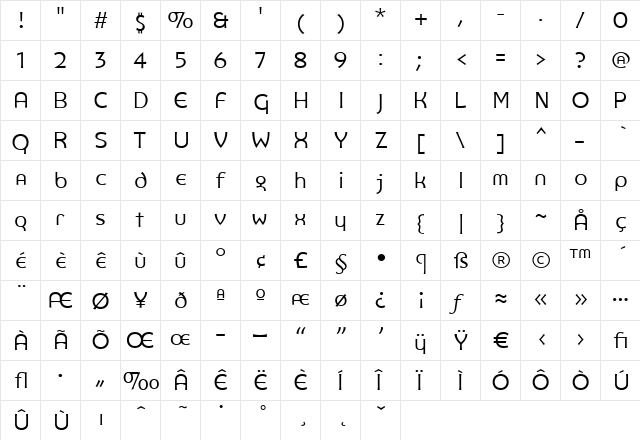
Magma Light
Design Context for Magma Typeface
Magma is a composed and adaptable typeface that performs quietly and consistently across a wide range of design contexts. Its slender proportions lend an understated elegance to any composition.